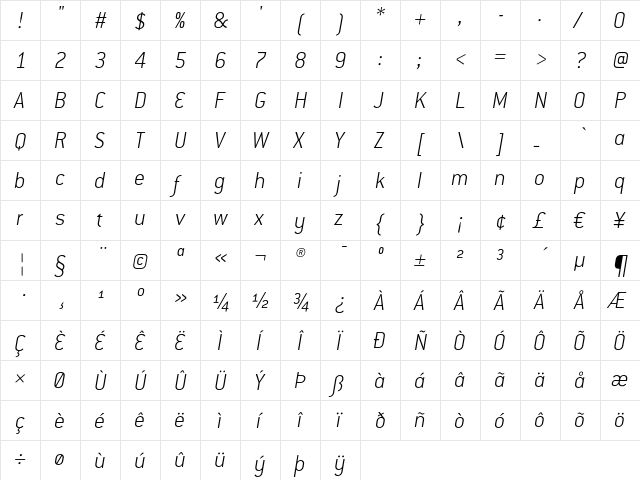
Conduit ITC ExtraLight Italic Font Preview
| Foundry | Agfa Monotype Corporation |
Design Context for Conduit ITC ExtraLight Typeface
Conduit ITC ExtraLight offers clean, dependable letterforms without strong stylistic allegiance, making it a practical choice for designers who need flexibility. Its italic angle brings a sense of urgency and motion to the letterforms. Its slender proportions lend an understated elegance to any composition. The condensed width makes it efficient for tight spaces without sacrificing legibility.
Pro Tip: Try Conduit ITC ExtraLight for annotation and caption copy alongside an upright companion — the contrast in angle creates a dynamic but ordered typographic system.